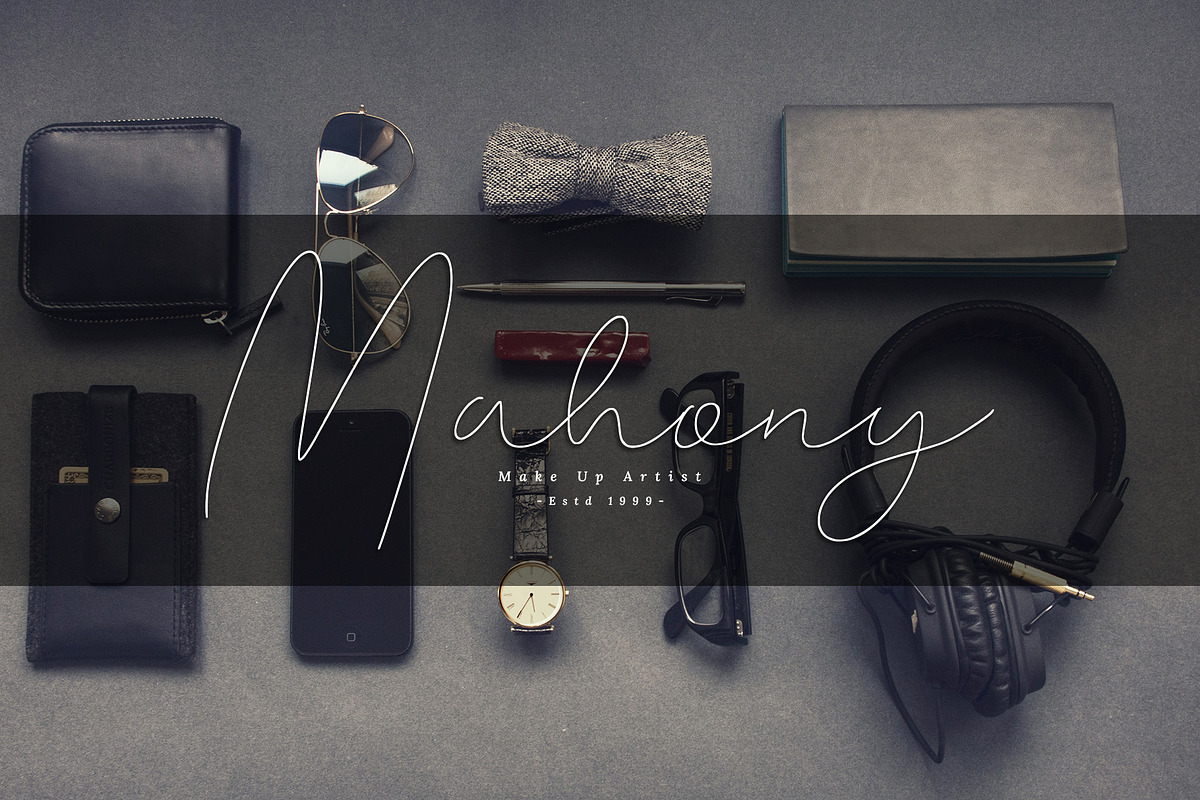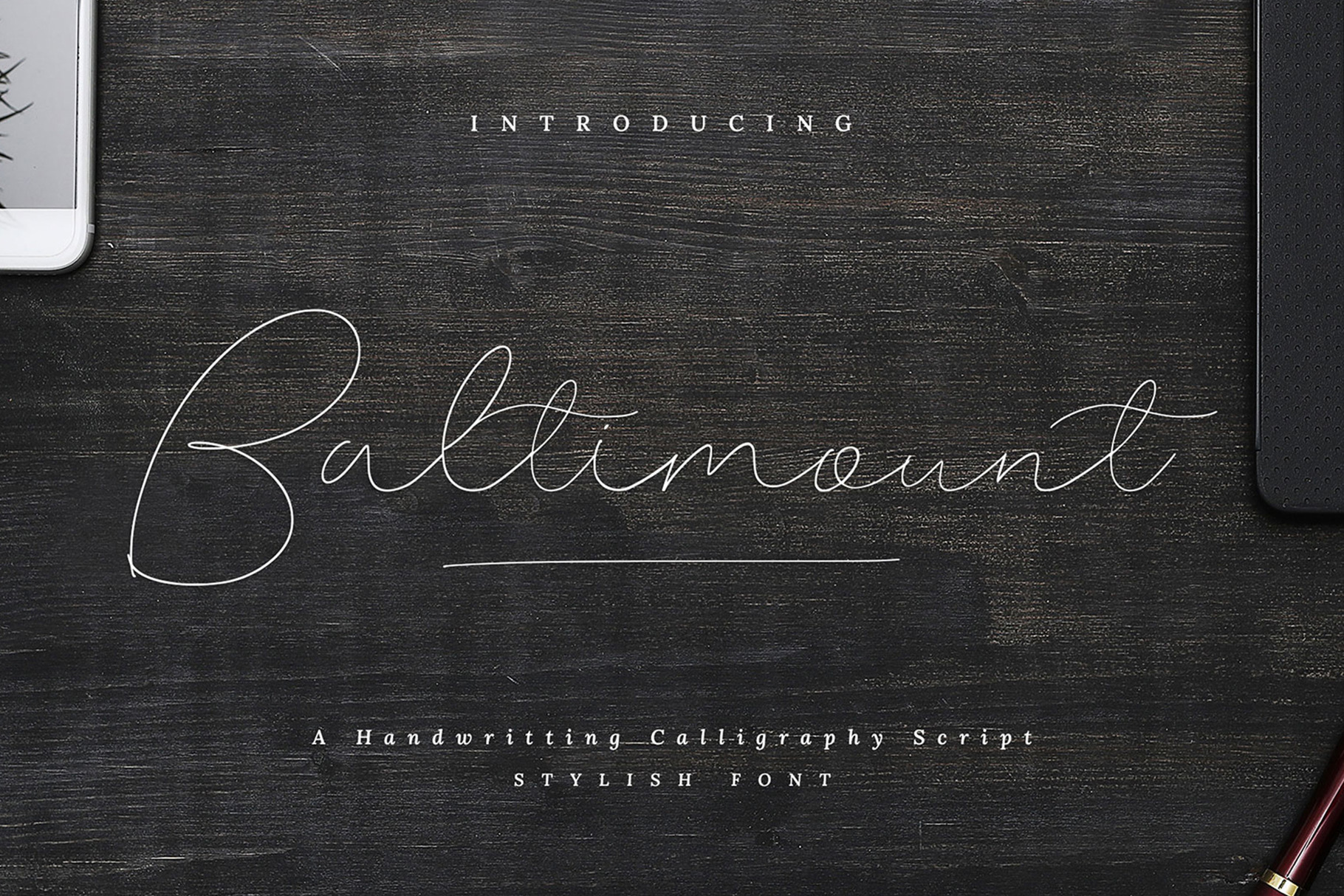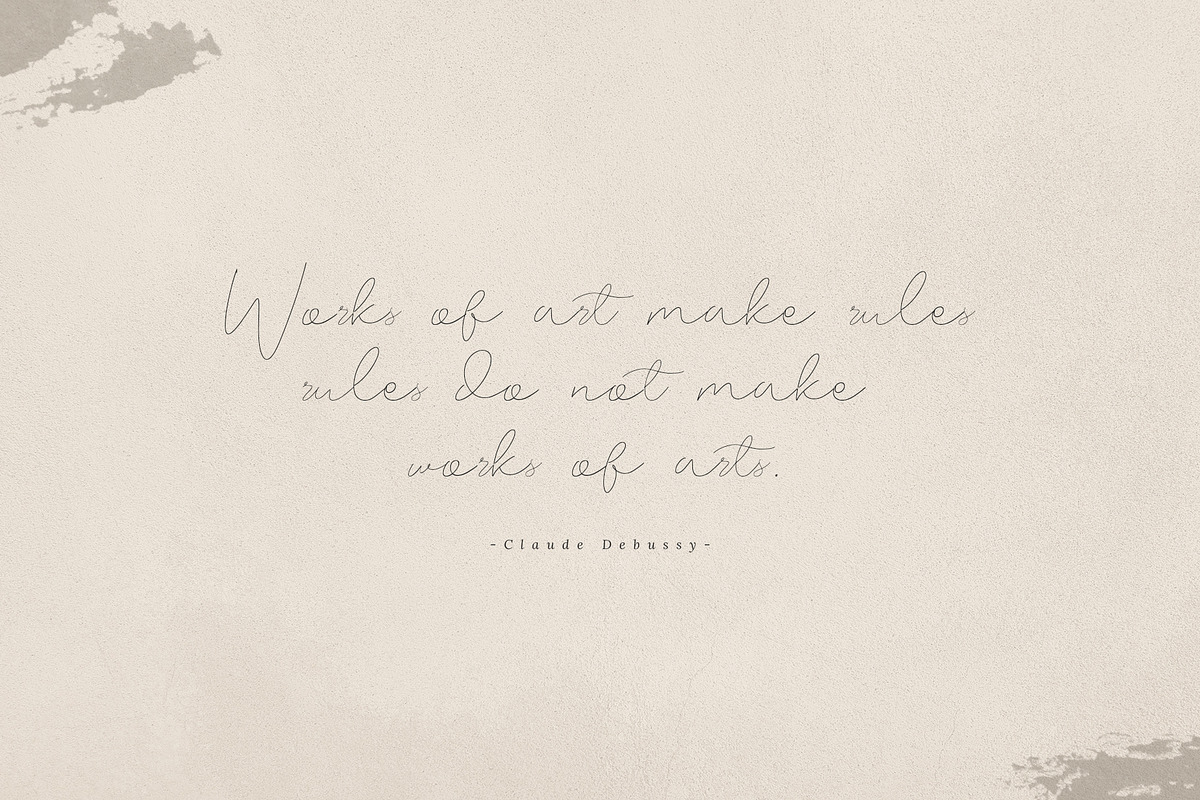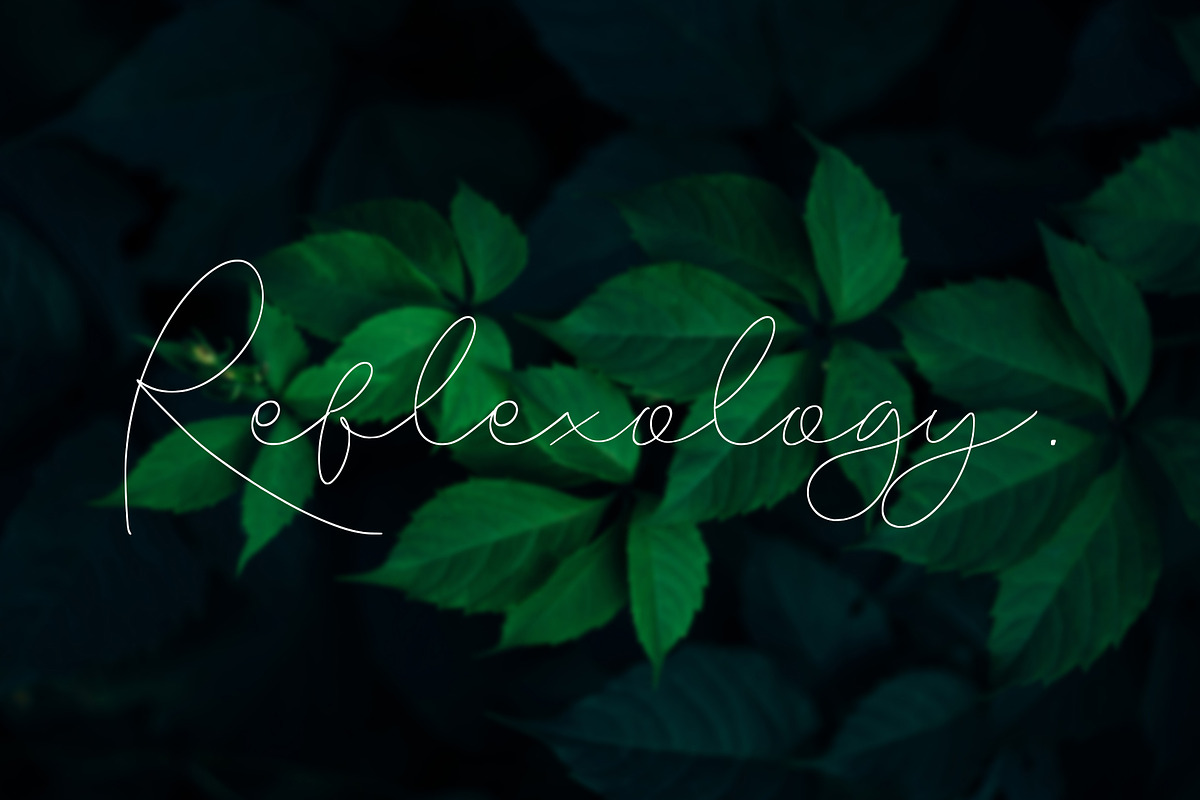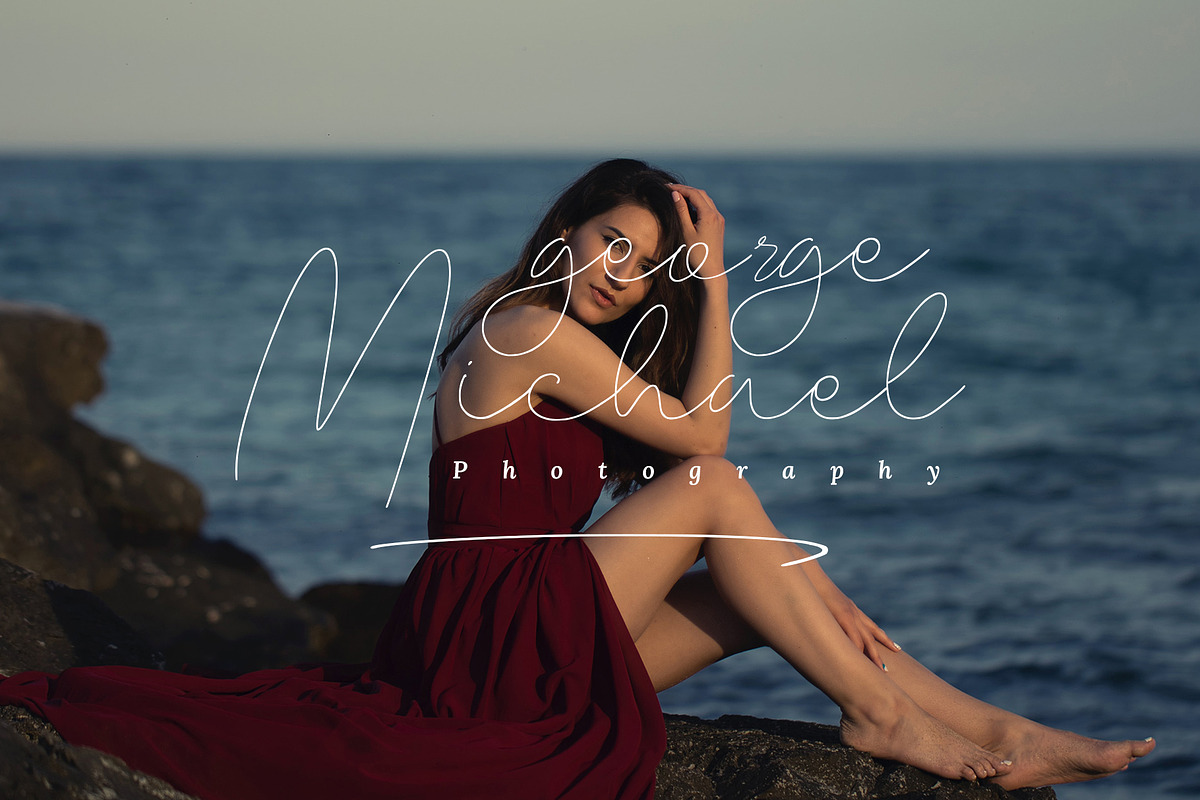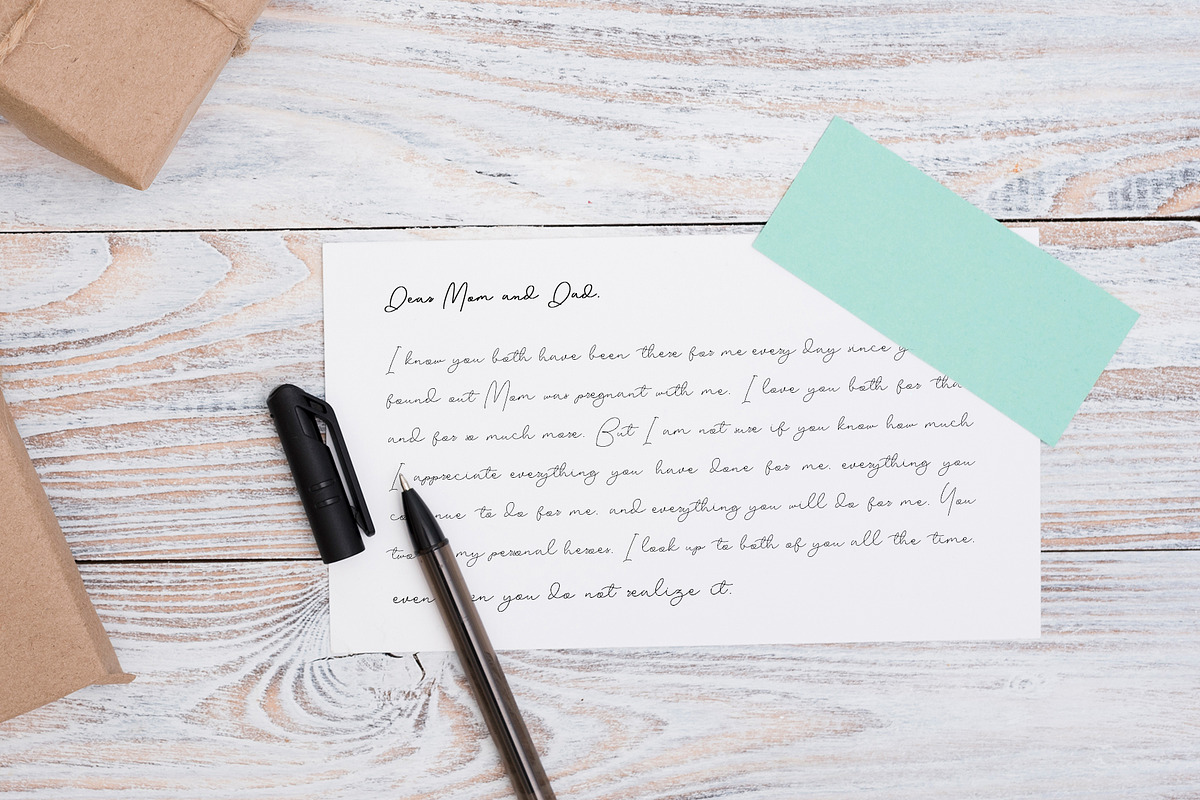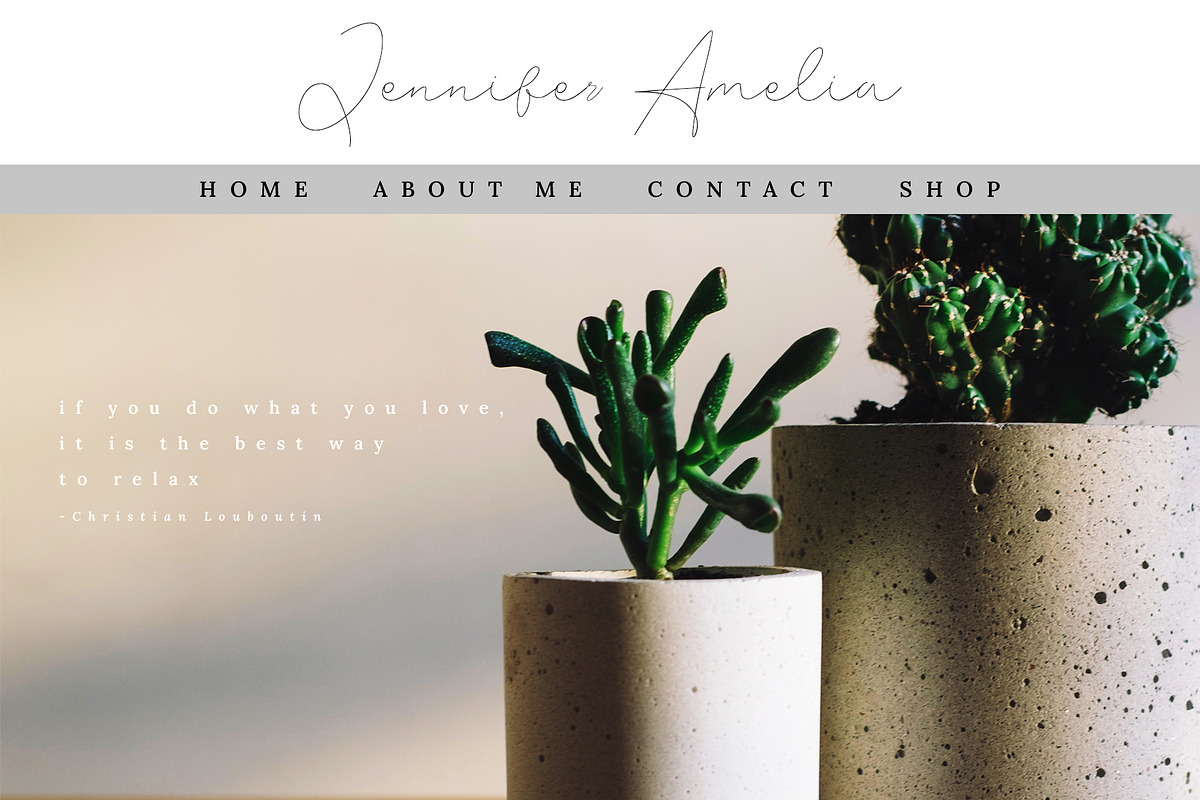
Baltimount Handwritten Font
Baltimount Handwritten Font that is perfect for logos, posters, signage, and more! It's best used for logos, wedding stationery, social media, and quotes. Test it out in the box above to see how it would look for your next project!
Baltimount Handwritten Font it comes in with alternate characters (OpenType feature). With multilingual support, this font also suitable to be combined with san-serif to get an extraordinary result for your design projects.